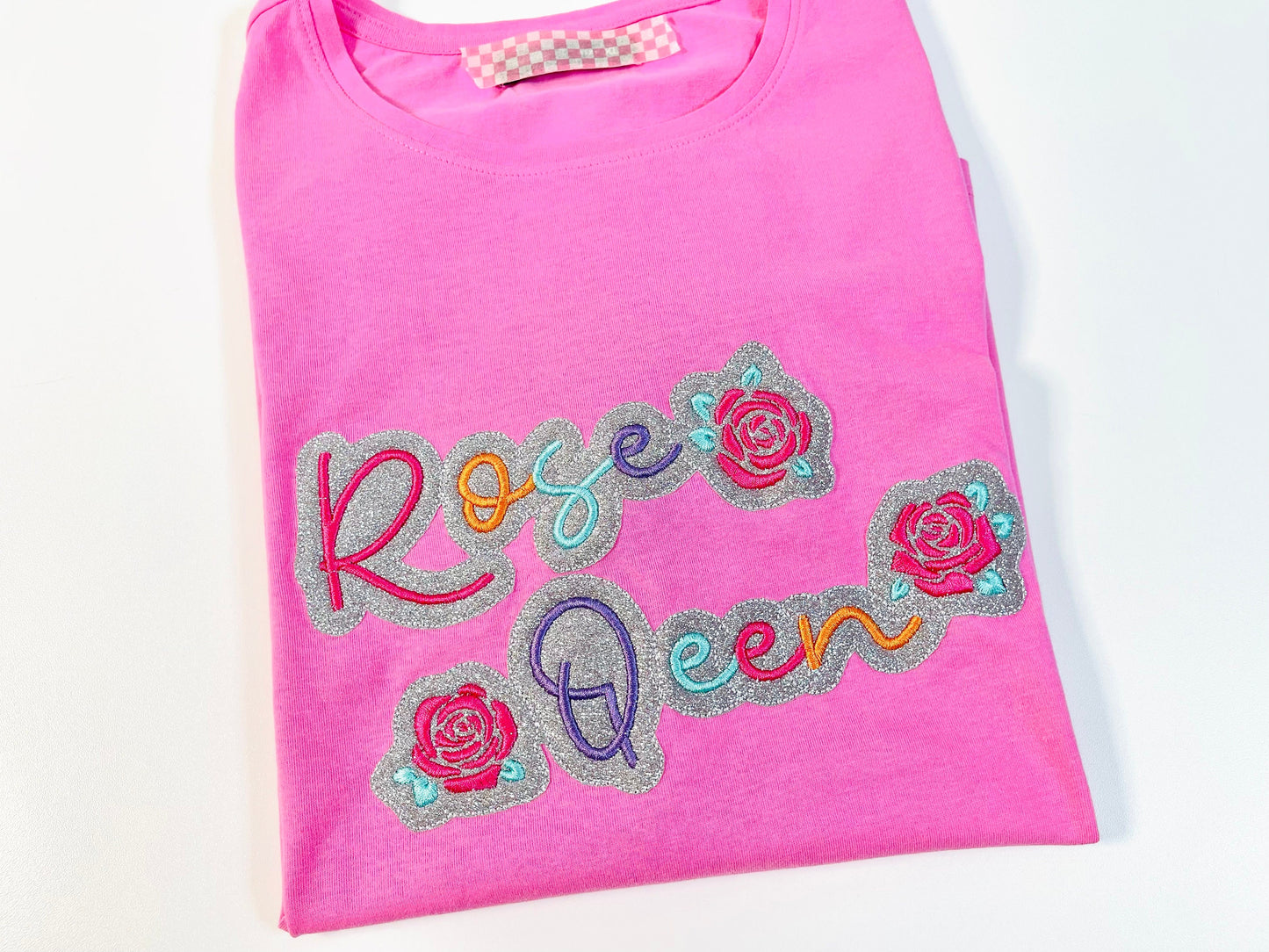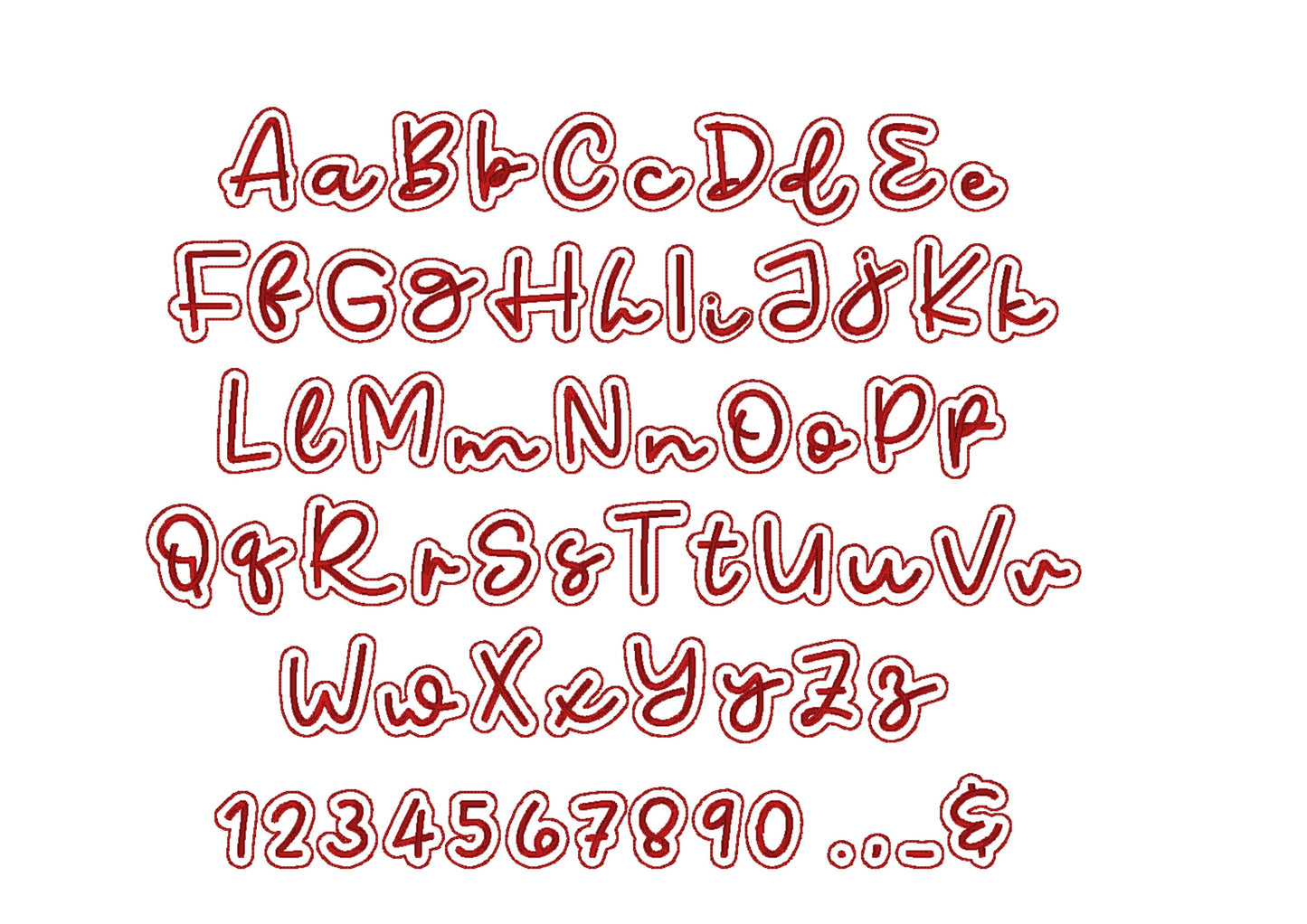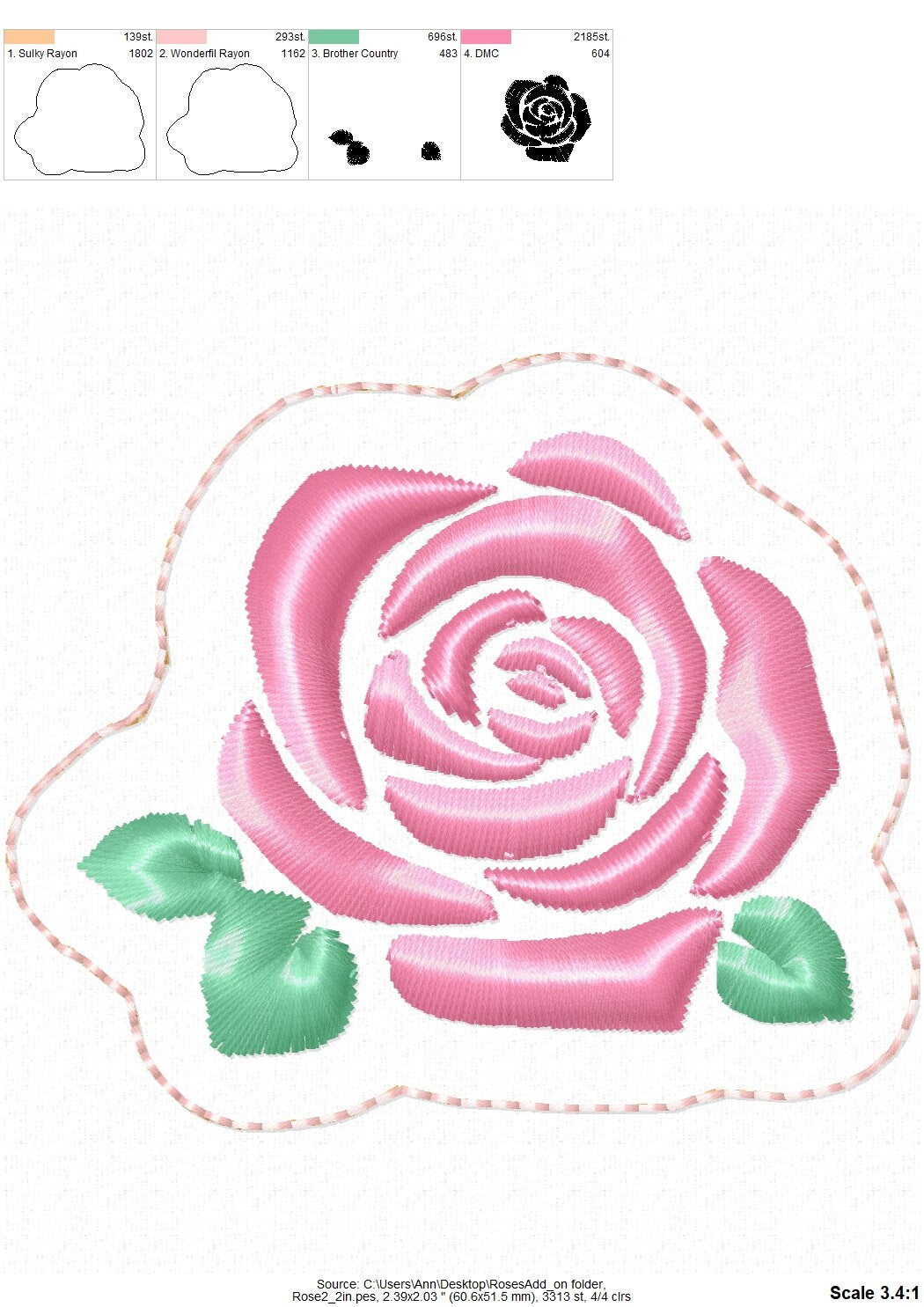
Or click to open the linkA mini handwritten applique font with a glitter vinyl layer and a satin edge, plus rose add-ons. Sparkly for names on shirts, bags and gifts.
Uppercase and lowercase letters, numbers 0 to 9 and punctuation in six sizes: 1, 1.2, 1.5, 1.9, 2.3 and 2.7 inches. Rose flowers come in 1.5 and 2 inches. Where letters join the outlines overlap; with glitter vinyl and a matching thread this does not show.